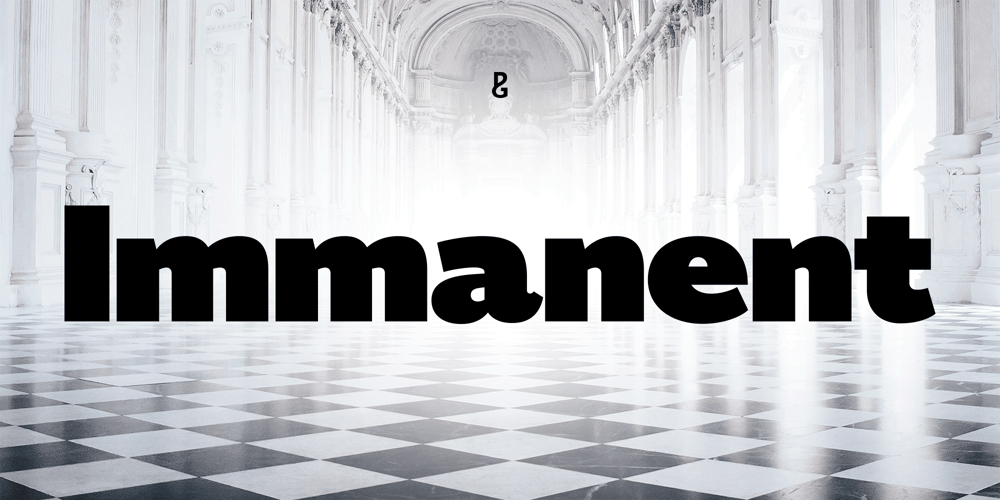
Immanent Font Family was designed by Paulo Goode and published by Paulo Goode. Immanent contains 36 styles and family package options. Immanent is an elegant humanist sans typeface designed to perfectly complement Eschaton. This 36-font type family has a purposeful, contemporary stance that excels on screen and in print by way of its three optical sizes.Immanent’s elegantly clean and simple forms allow your text, your headlines, your message to stand proud and be heard – finding a moment of clarity in today’s world of continual visual bombardment. Immanent’s DNA is shared with Eschaton, making them an impressive font pairing that can tackle a multitude of typographic challenges.Immanent is a refined display typeface in its standard form, the full family includes Text (lower contrast with ample spacing) and Xtra (higher contrast with tight spacing) optical sizes to cater for further typographic demands. Weights range from light to black in both roman and italic styles. The default figure type is set to old-style, however, proportional figures are just a click away if you prefer. Immanent has an extensive character set that covers all Latin European languages.See full details and hi-res examples at https://paulogoode.com/immanentKEY FEATURES• Six Weights• Roman & Italic• Three Optical Sizes• 450+ Glyphs